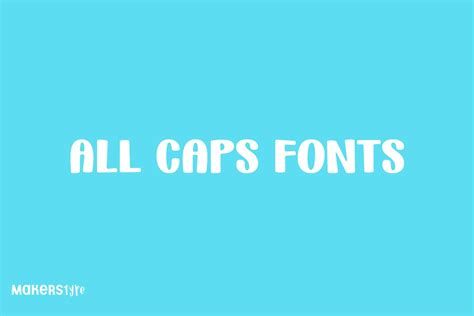
All Cap Font. These fonts consist of capital lettering only and don't contain any lowercase letters. All caps fonts contain all capital letters, whether you type in the lowercase or uppercase alphabet.
All caps fonts contain all capital letters, whether you type in the lowercase or uppercase alphabet. These fonts consist of capital lettering only and don't contain any lowercase letters.
All caps fonts contain all capital letters, whether you type in the lowercase or uppercase alphabet. All caps fonts contain all capital letters, whether you type in the lowercase or uppercase alphabet. These fonts consist of capital lettering only and don't contain any lowercase letters.